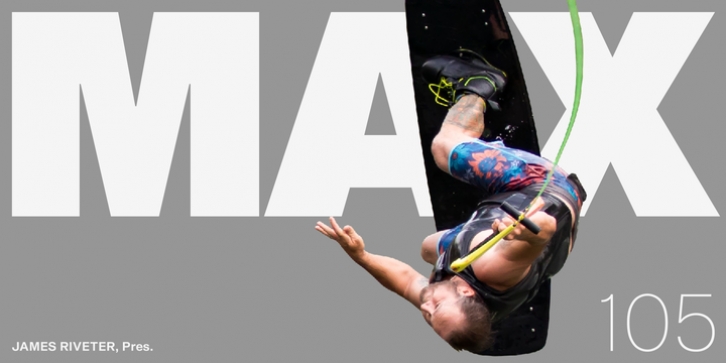
Shapiro Base was designed by Oliver Jeschke and published by OGJ Type Design. Shapiro Base contains 19 styles and family package options.
A neo-grotesque with 19 cuts from very light to very bold.
On the basis of the classical form, Shapiro meets all the requirements that are placed on a good font, such as good readability, a sympathetic overall impression, as well as a balanced gray-effect.
The very bold cuts are a good starting point for a branding.